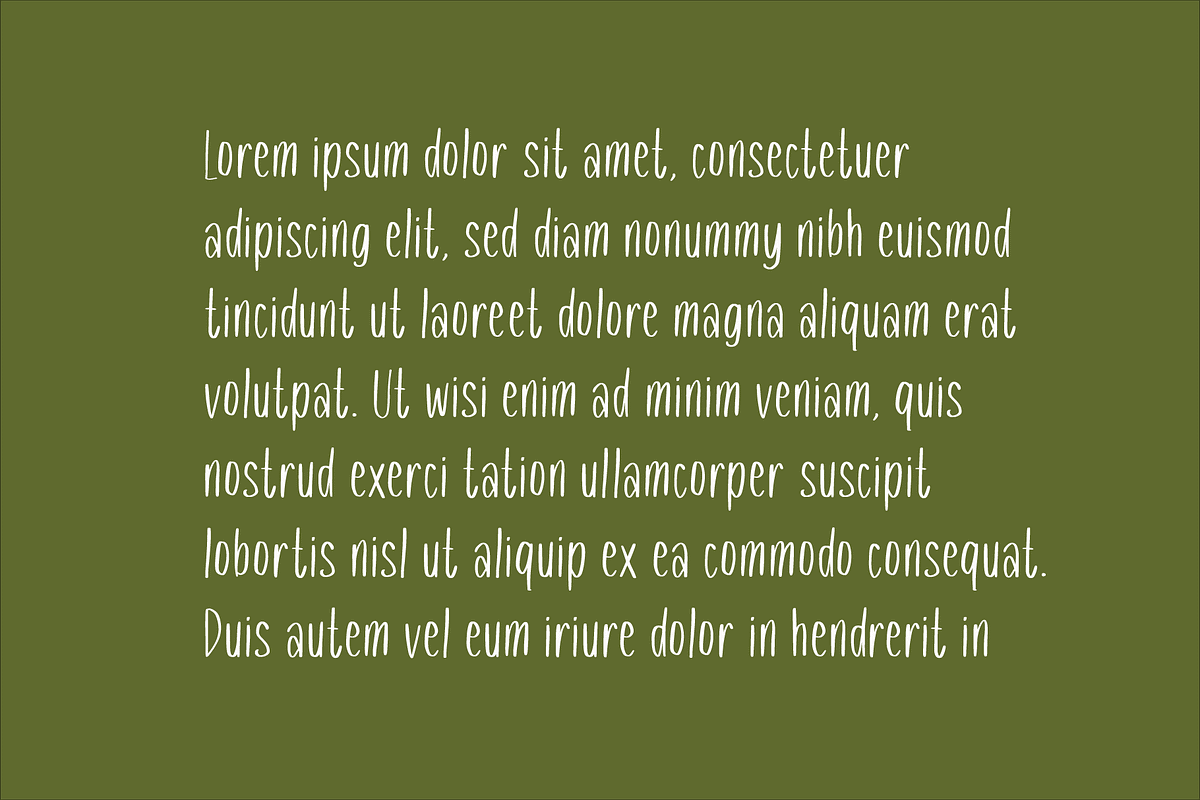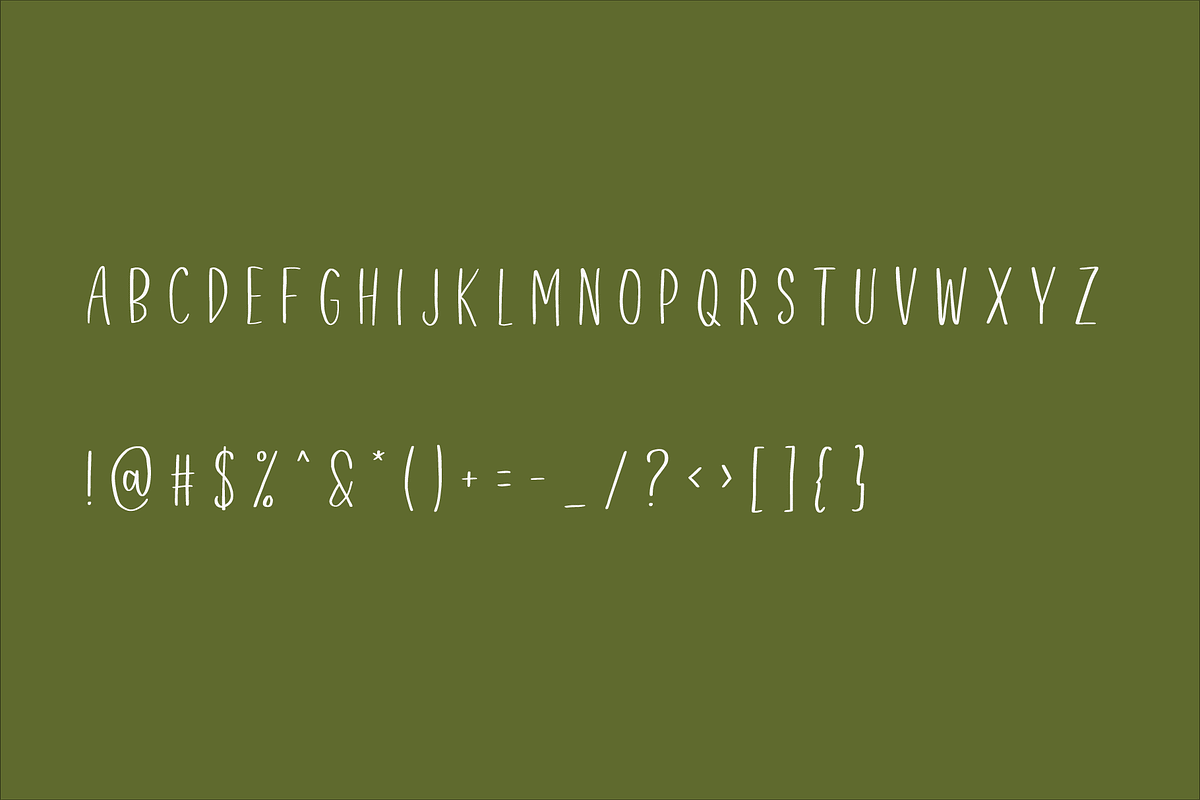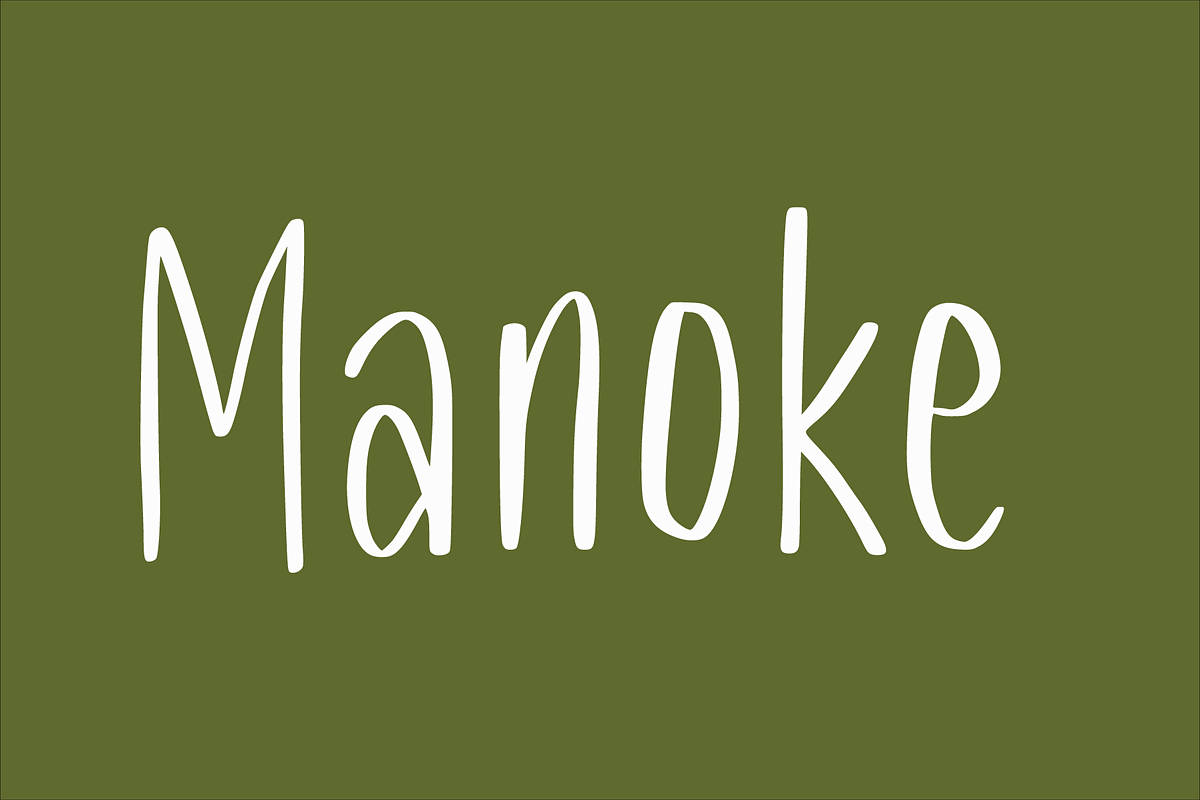
Manoke
Manoke - The Handwritten Sans
Manoke - The Handwritten Sans Serif, every single letter has been carefully crafted to make your text looks beautiful. it's perfect for logos, name cards, magazine layouts, invitations, headers, or even large-scale artwork.
Manoke - The Handwritten Sans serif font including upper & lowercase characters, numerals and more of symbols.
Multilingual support for various languages